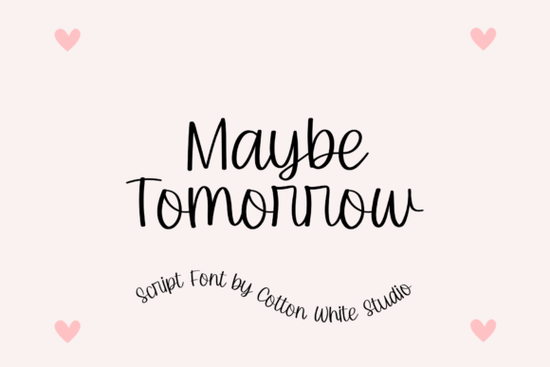
If you’re looking for a handwritten script that feels personal and warm without being overly fussy, Maybe Tomorrow Font might be exactly what your next project needs. It’s the kind of typeface that works just as well on a boutique coffee shop logo as it does on a handmade birthday card or Instagram quote graphic. The strokes are smooth, the connections between letters feel natural, and there’s enough variation in weight and flow to keep things interesting but not chaotic.
What makes this font stand out is how effortlessly it blends into both digital and print designs. Whether you’re laying out a wedding invitation suite or designing merch for your Etsy store, Maybe Tomorrow adds that human touch people respond to. You can pair it with something clean and minimal like Wonder Day for contrast, or let it shine solo when you want the message to feel intimate and thoughtful.
What kinds of projects work best with Maybe Tomorrow?
This font was clearly made with versatility in mind. Here’s where it really shines:
- Branding & logos – Especially for lifestyle brands, bakeries, florists, or wellness businesses where personality matters more than polish.
- Social media templates – Quotes, announcements, or seasonal posts look instantly more engaging with its organic curves.
- Printables & planners – Use it for section headers, motivational quotes, or decorative accents inside journals or calendars.
- Packaging & labels – Adds charm to small-batch goods, candles, teas, or handmade soaps.
- Invitations & stationery – Wedding suites, baby showers, or holiday cards all benefit from its gentle, inviting rhythm.
It also layers beautifully with other script fonts if you’re building a typographic hierarchy. Try combining it with Heart Warming for subheadings or body text their similar vibe creates cohesion without monotony.
Is it easy to use for beginners?
The character set includes uppercase and lowercase letters, numerals, punctuation, and a handful of alternates and ligatures enough to give your text some flair without overwhelming new users. If you’re not sure how to access those stylistic alternates yet, don’t worry: most design tools (even free ones) now have dropdown menus that let you toggle them on with one click.
And if you’ve ever struggled with spacing in script fonts, you’ll appreciate how well-balanced Maybe Tomorrow is. Letters connect naturally, and line spacing stays consistent whether you’re typing “hello” or “congratulations.” For comparison, check out how Stylish Font handles tight kerning they’re very different moods, but both useful depending on your goal.
How does it compare to other handwritten scripts?
Unlike some script fonts that lean heavily into exaggerated swashes or ultra-thin hairlines, Maybe Tomorrow keeps things grounded. It’s legible at smaller sizes, doesn’t require perfect alignment to look good, and doesn’t scream “look at me!” it invites you in gently.
If you’ve used Beautiful Fonts before, you’ll notice Maybe Tomorrow has a softer, less structured personality. And while Front Picture goes bold and graphic, this one whispers elegance. That makes it ideal when you want emotion over impact.
Any tips for getting the most out of this font?
Yes a few small tweaks go a long way:
- Don’t stretch it. Keep proportions intact to preserve the hand-drawn integrity.
- Use generous leading. Script fonts need breathing room bump up your line height slightly for better readability.
- Pair with simple sans-serifs. Think Helvetica, Lato, or Montserrat for clean contrast.
- Try subtle textures. A light paper grain or watercolor wash behind your text enhances the handmade feel.
Also, play around with color. This font looks lovely in muted tones dusty rose, sage green, cream, or charcoal but don’t be afraid to try unexpected combos like navy + gold foil or blush + deep plum. Its neutral base lets you experiment without clashing.